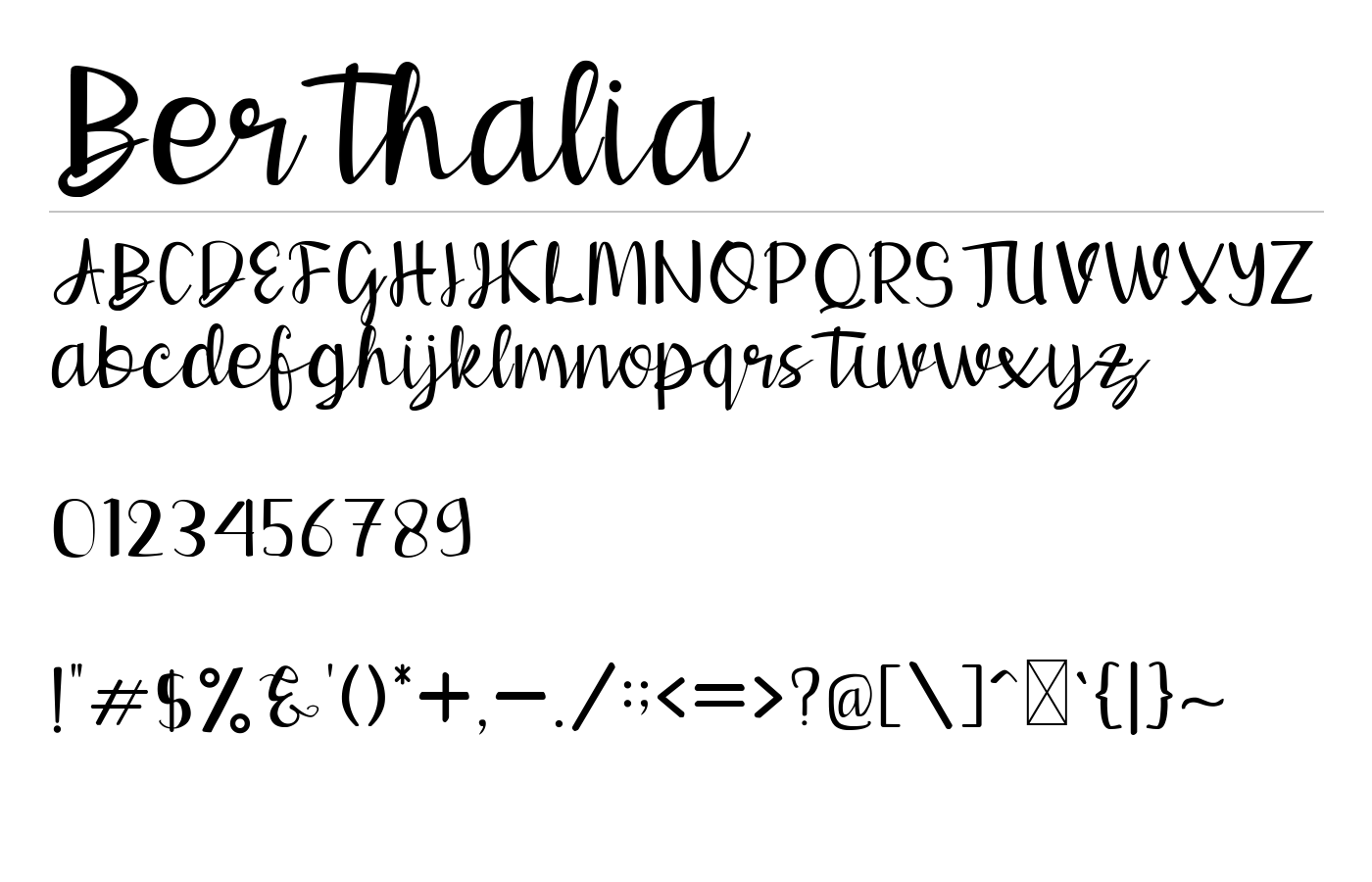
Berthalia is a stylish script font with a playful and elegant handwritten feel, featuring smooth, flowing strokes and a mix of rounded and slightly sharp forms that add character and charm. Its moderate weight and tall x-height make it highly readable while maintaining a sophisticated, casual vibe, perfect for branding, invitations, and creative projects that need a personal yet polished touch. This font works well in headlines and logos where a friendly and approachable elegance is desired.
Berthalia Font